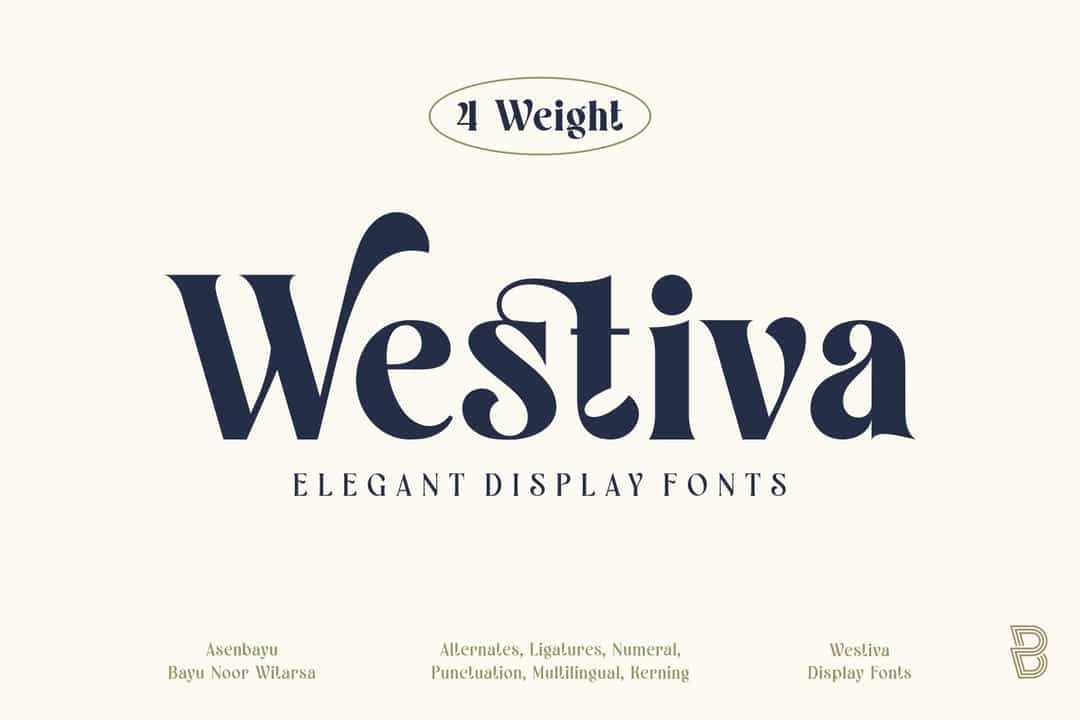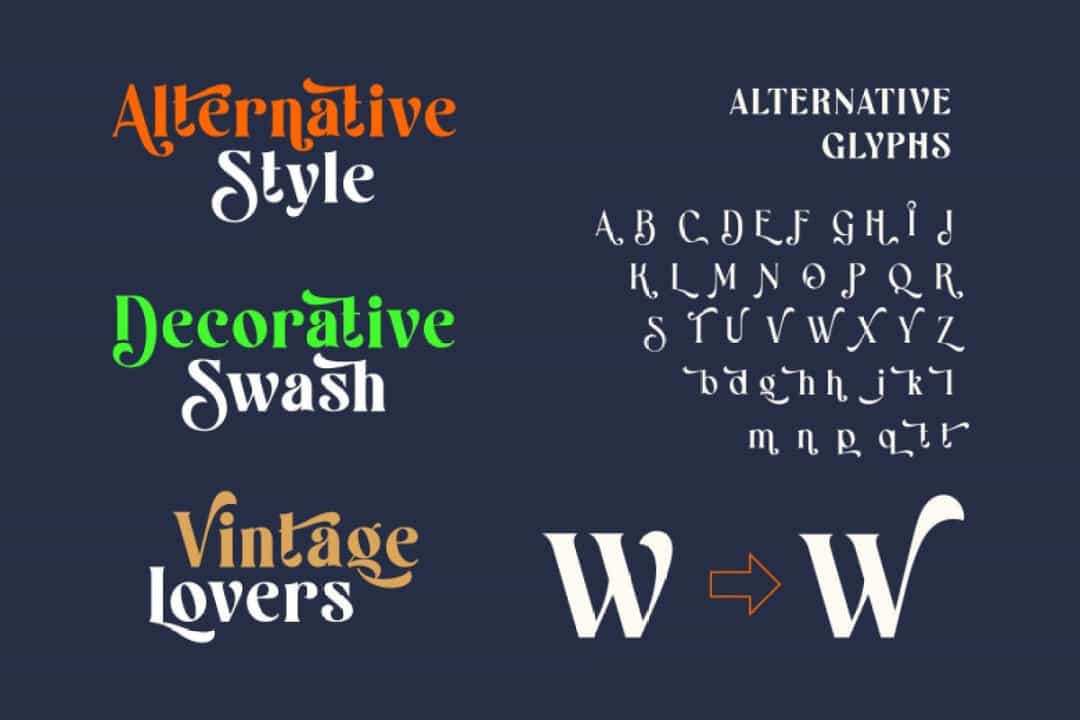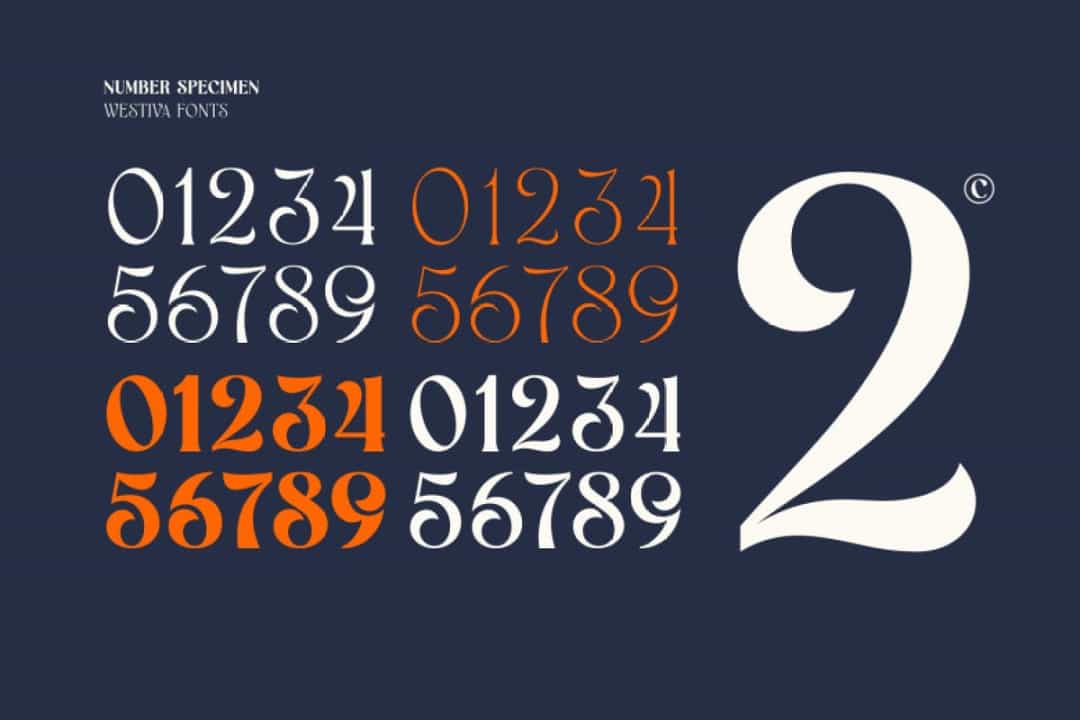
Westiva font is an elegant and sophisticated typeface family designed with beautiful curves that add sophistication. Westiva Typography will assist in completing various projects such as luxurious brands, journal entries books titles business cards social media posts products web and much more. If your task requires professional writing then Westiva font may be just what’s needed to complete it successfully.